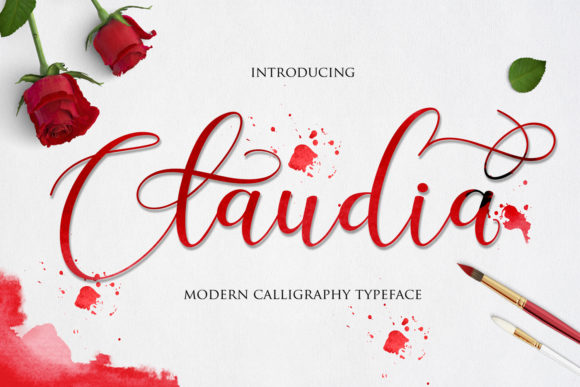
Discover the Elegance of Claudia Font: A Handwritten Masterpiece
Are you on the hunt for a font that exudes elegance, sophistication, and a touch of whimsy? Look no further than Claudia Font, a beautiful handwritten font that is sure to capture your heart. With its flowing and delicate lines, Claudia is the perfect choice for designers and crafters looking to add a touch of luxury to their projects.
What Makes Claudia Font So Special?
Claudia Font is a true standout in the world of typography, and its unique characteristics make it a versatile and desirable choice for a wide range of design applications. Here are just a few of the features that set Claudia apart:
- Elegant and Refined: Claudia’s handwritten lines are smooth, flowing, and incredibly elegant. This font is perfect for designs that require a touch of sophistication and refinement.
- Incredibly Versatile: Whether you’re working on a wedding invitation, a branding project, or a digital design, Claudia Font is the perfect choice. Its versatility makes it suitable for a wide range of applications, from formal and elegant to playful and whimsical.
Use Claudia Font to Create Spectacular Designs
With Claudia Font, the design possibilities are endless. Here are just a few ideas to get you started:
- Wedding Invitations: Claudia Font is the perfect choice for wedding invitations, save-the-dates, and other stationery. Its elegant lines and flowing script make it a beautiful fit for formal wedding designs.
- Branding and Packaging: Use Claudia Font to add a touch of sophistication to your branding and packaging designs. Its unique and eye-catching style is sure to help your brand stand out.
- Digital Designs: Claudia Font is also a great choice for digital designs, including social media graphics, blog headers, and more. Its elegant lines and flowing script make it a beautiful fit for a wide range of digital applications.
Tips and Tricks for Working with Claudia Font
To get the most out of Claudia Font, here are a few tips and tricks to keep in mind:
- Experiment with Swashes: Claudia Font’s PUA encoding makes it easy to access a wide range of swashes and glyphs. Experiment with different combinations to add unique touches to your designs.
- Play with Pairings: Claudia Font pairs beautifully with a wide range of other fonts. Experiment with different pairings to find the perfect combination for your design.
- Pay Attention to Kerning: As with any font, kerning is important when working with Claudia. Take the time to adjust the kerning to ensure that your text looks smooth and polished.
Claudia Font is a true gem in the world of typography. Its elegant lines, flowing script, and PUA encoding make it a versatile and desirable choice for designers and crafters. Whether you’re working on a wedding invitation, a branding project, or a digital design, Claudia Font is the perfect choice. So why wait? Fall in love with Claudia’s incredibly versatile style and use it to create spectacular designs that showcase your creativity and skill.
With Claudia Font, you can add a touch of elegance and sophistication to any project. Its unique characteristics and versatility make it a valuable addition to any designer’s toolkit. So go ahead, give Claudia Font a try, and see the difference it can make in your designs.